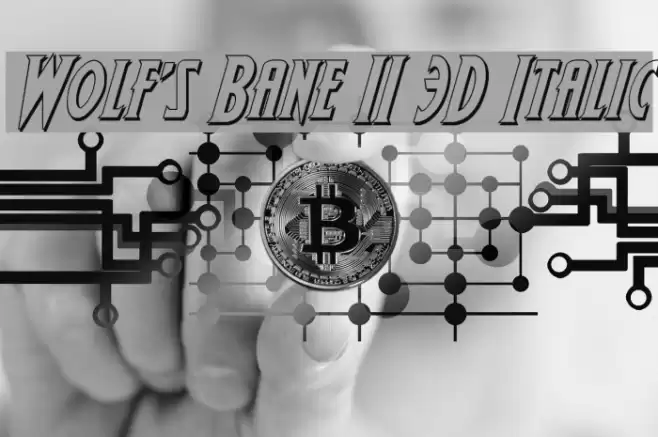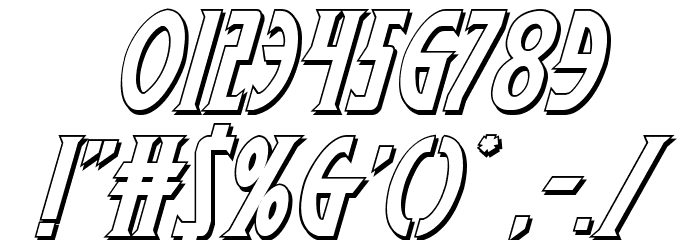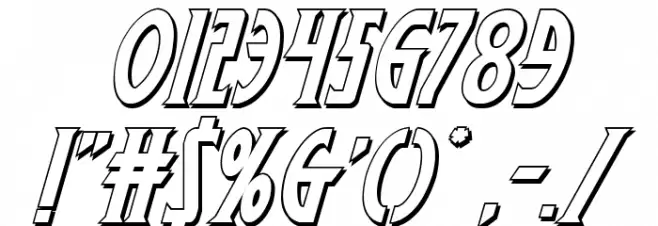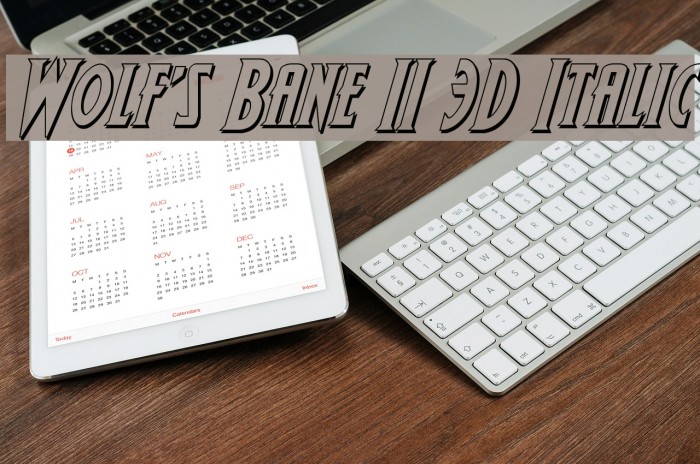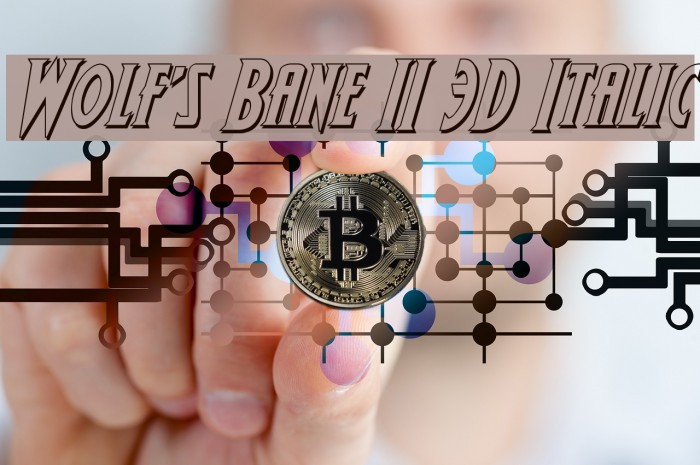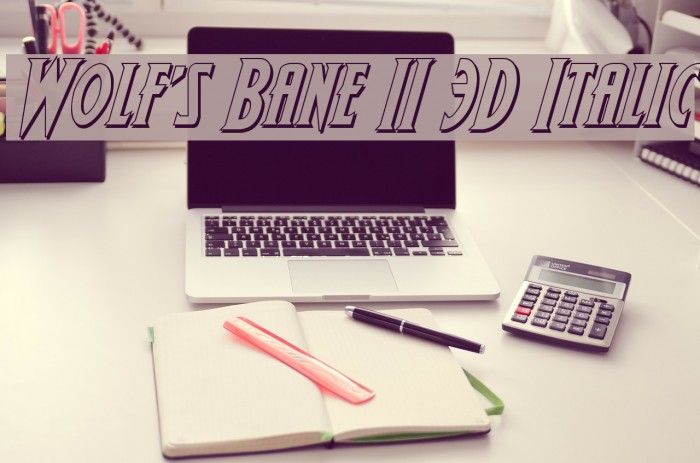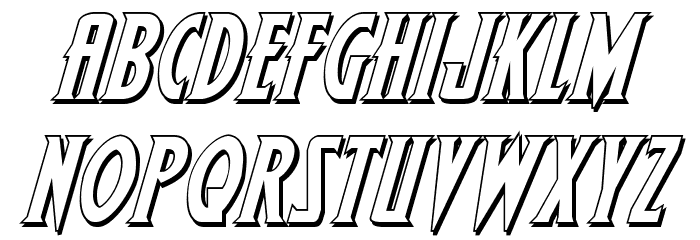
Wolf's Bane II 3D Italic Font
Wolf's Bane II 3D Italic Description
This font features a bold, dynamic 3D italic style that gives a sense of movement and energy. The letters are sharply angled and have a shadow effect that enhances the three-dimensional appearance. The uppercase and lowercase characters maintain a consistent slant, creating a cohesive look. The numerals and special characters follow the same design principles, ensuring uniformity across all elements. This font's strong presence makes it ideal for attention-grabbing designs.
A bold, 3D italic font with dynamic angles and shadow effects from Uncategorized fonts.
- Proposed Projects: Ideal for posters, video game titles, comic book covers, and any project requiring a bold, energetic typeface.